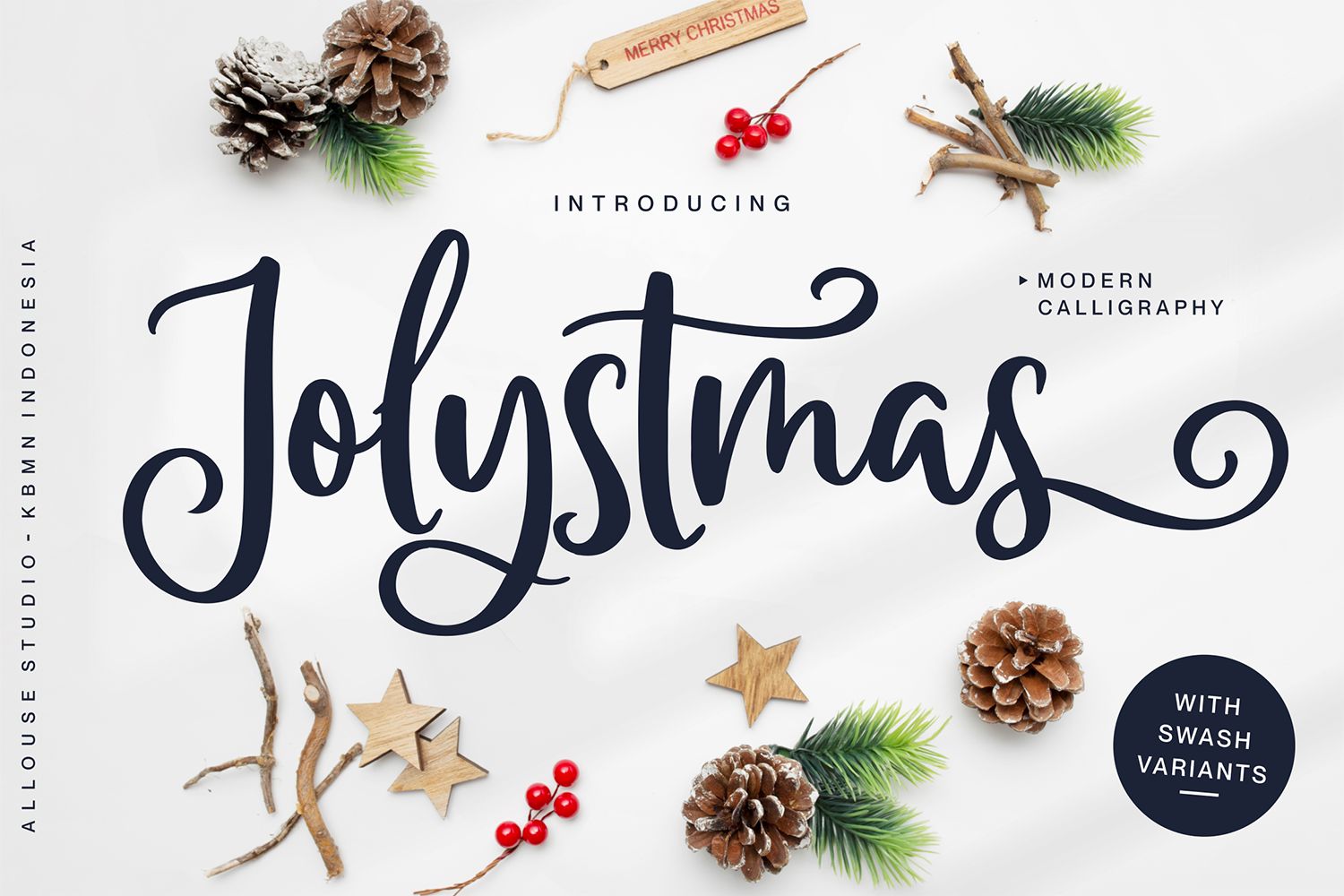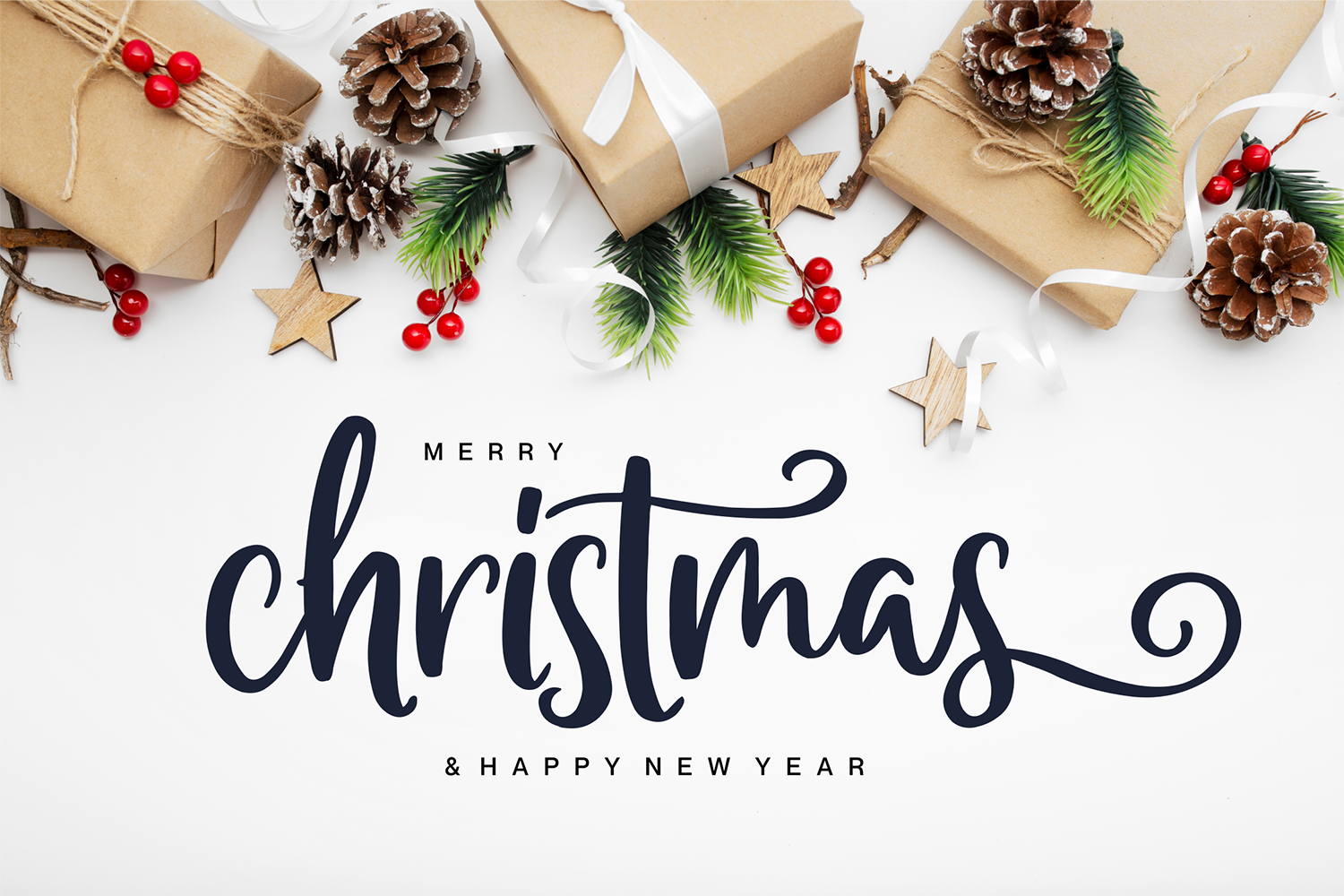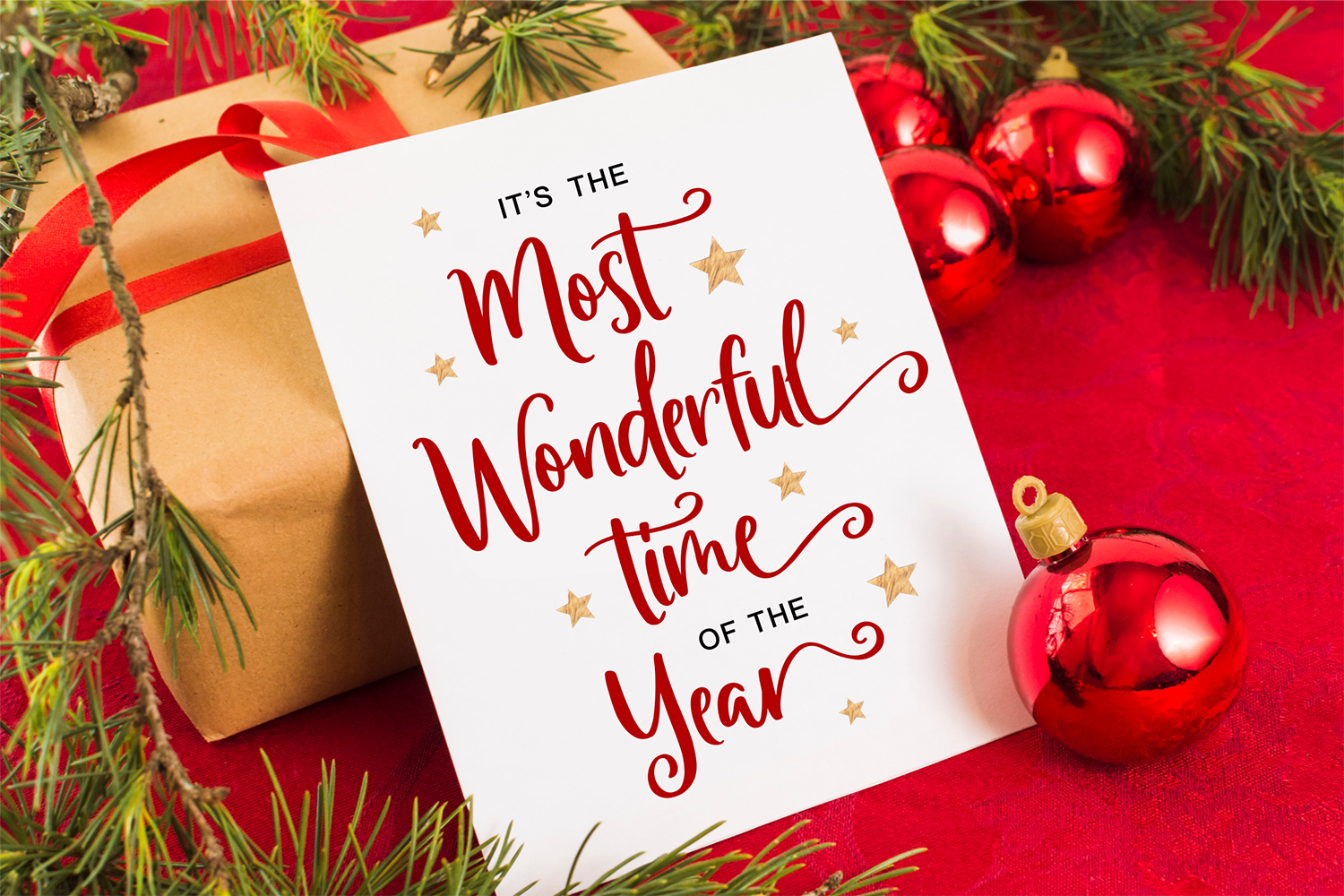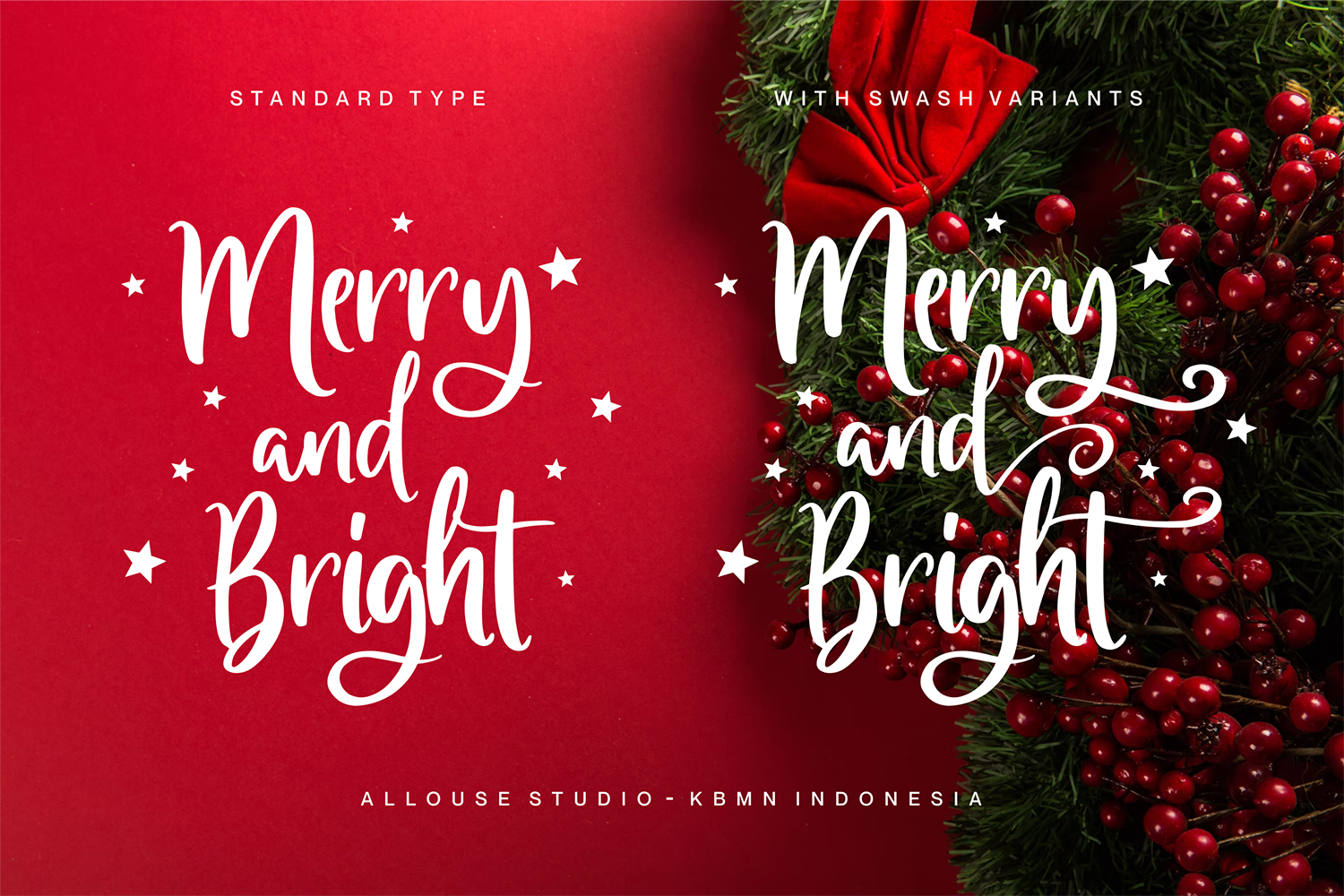
Jolystmas Free Font
Jolystmas Free Font brings the festive spirit to life with its sweet calligraphy typeface, where characters gracefully dance along the baseline. Elevate any design project with a touch of opulence, courtesy of Jolystmas. This free typeface was designed by a talentedΒ Allouse Studio. If you like it don’t forget to check out the full version.